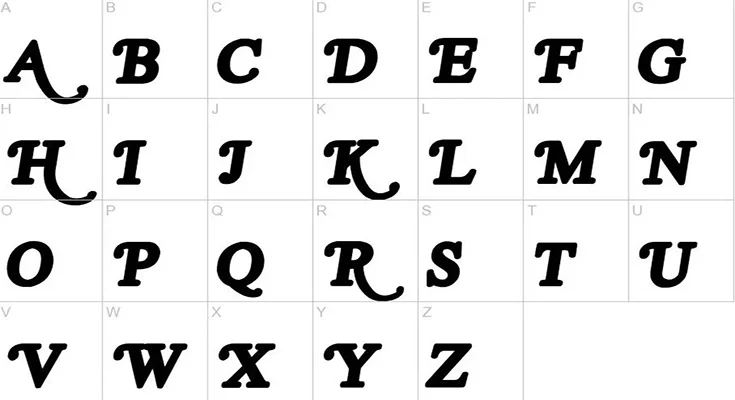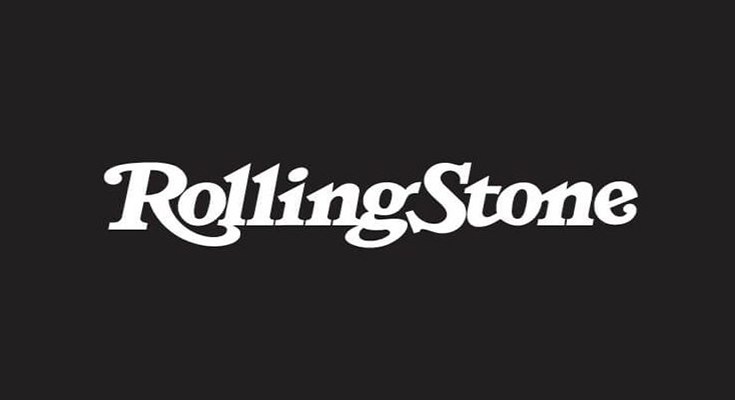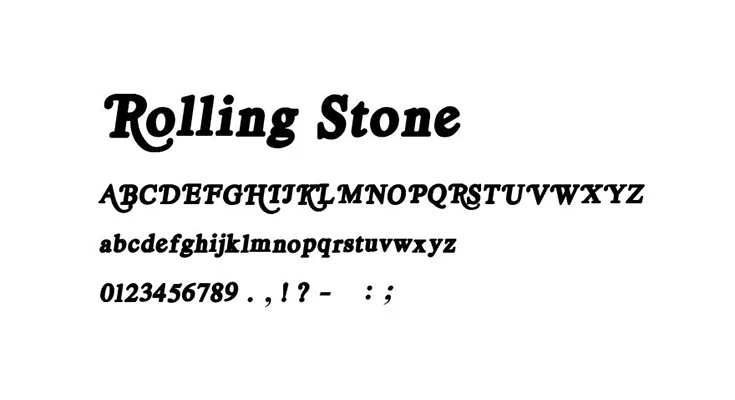
Introducing Rolling Stone Font! This is actually a logo font used for the logo title Rolling Stone. It is a prominent magazine primarily based in San Francisco that was founded in 1967.
The magazine is active in covering liberal politics, popular culture, music, Hollywood news, etc.
We share a font that is free and very similar to the font used in this logo. The font is Royal Acidbath which was designed by Sharkshock.
The font provides 653 modern glyphs with 1000 units per em and all sets of bold 200 characters including upper and lower case letters, numbers, and punctuation marks.
The font features a mix of thick and thin strokes with sharp serifs that give it a strong and elegant appearance. Its timeless style and versatility make it a great choice for a wide range of design projects, from editorial layouts to branding and advertising.
This font is also used for headings and headings purposes. You can also create amazing store/shop names, product titles, magazine, and newspaper headlines, quotations for websites, social media posters, PowerPoint presentations, and more. It can be used to add a touch of elegance and sophistication to a variety of design projects.